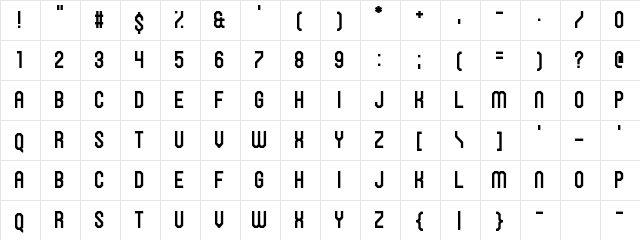
Hawking Bowen Regular
Design Context for Hawking Bowen Typeface
Hawking Bowen offers clean, dependable letterforms without strong stylistic allegiance, making it a practical choice for designers who need flexibility.
Pro Tip: Use Hawking Bowen in both headline and body roles to test its range before committing to a single application.